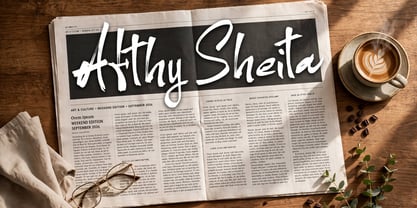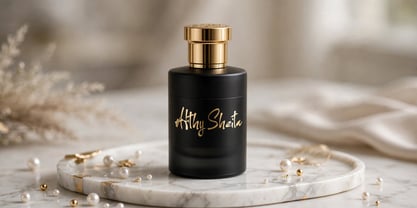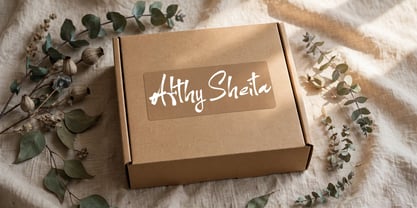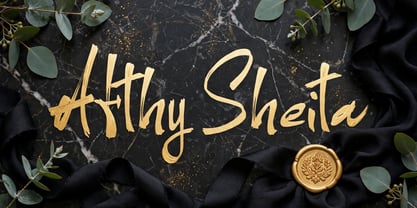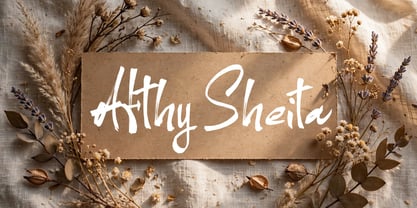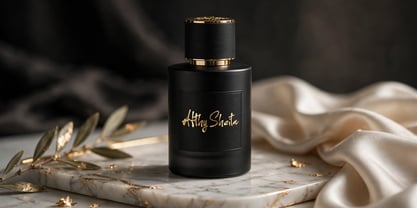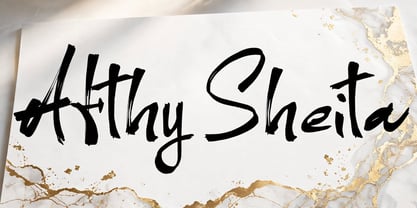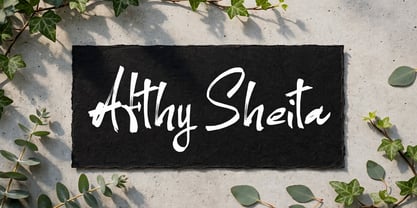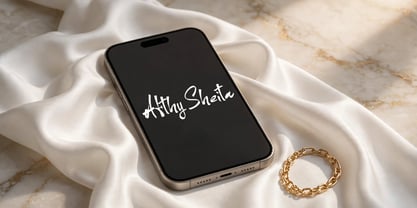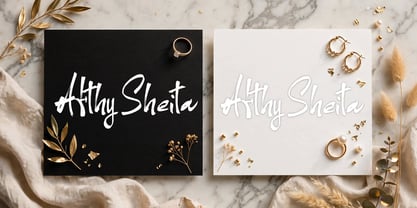
Afthy Sheita
by Ayska
The Afthy Sheita Font Family was designed by Dhoni Trihatmoko and published by Ayska. Afthy Sheita contains 1 styles. More about this family
Afthy Sheita, a cool and casual handwritten font . You can use this font in various projects - blog posts, digital planner, invitations, greeting cards, planners, photo albums, decorations and much more. This product was created to help you make your digital images even more beautiful and unique. Thank you